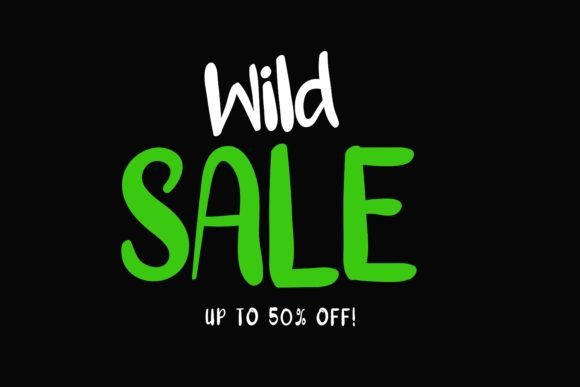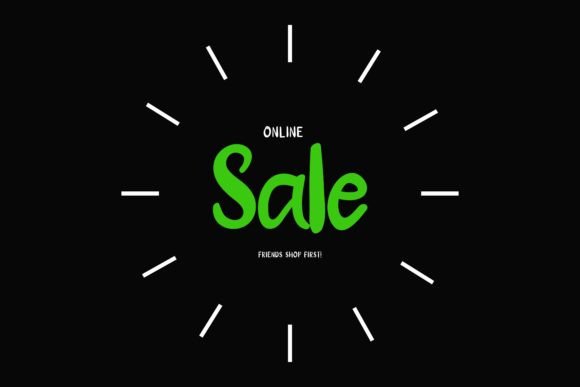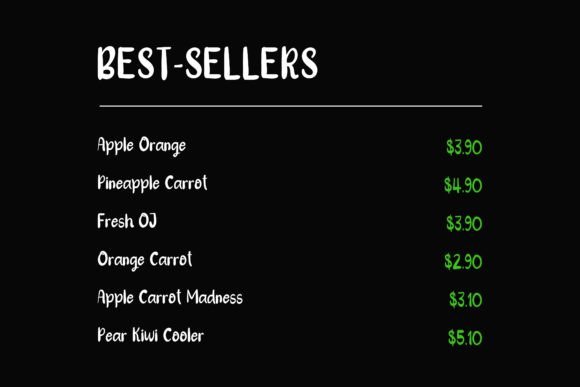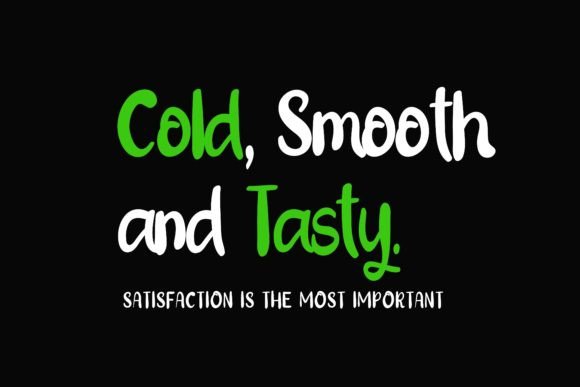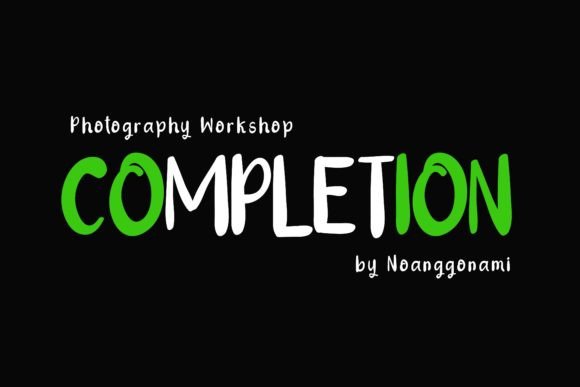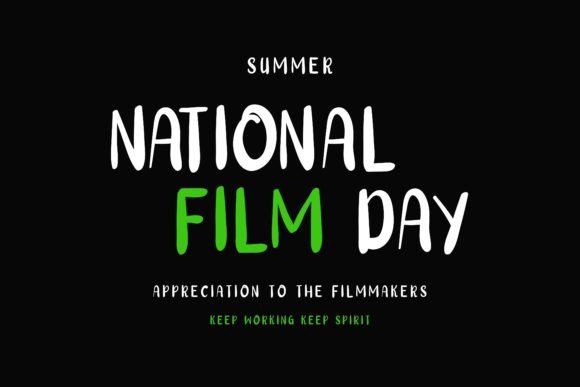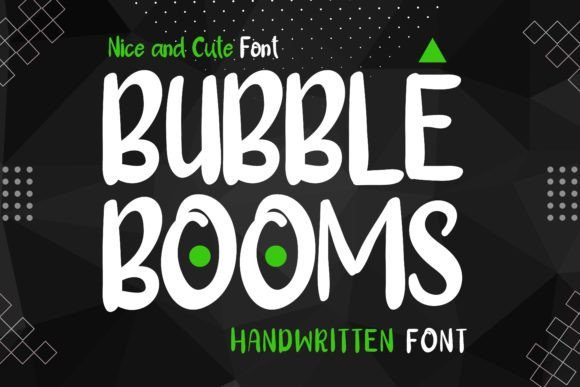
Bubble Booms Font: The Cute and Charming Handwritten Font for Your Design and Craft Projects
Are you looking for a font that can add a touch of whimsy and charm to your design and craft projects? Look no further than Bubble Booms Font! This adorable handwritten font is perfect for a wide range of projects, from logos and wedding invitations to T-shirts, letterheads, labels, and more. In this article, we’ll take a closer look at Bubble Booms Font and explore its features, benefits, and uses.
What is Bubble Booms Font?
Bubble Booms Font is a cute and charming handwritten font that’s designed to capture everyone’s heart and attention. Its playful and bubbly style makes it perfect for projects that require a touch of personality and whimsy. The font is highly legible and versatile, making it suitable for a wide range of design and craft projects.
Features of Bubble Booms Font
Bubble Booms Font has several features that make it a great choice for designers and crafters. Some of its key features include:
- Cute and charming design: Bubble Booms Font has a unique and adorable design that’s sure to capture everyone’s heart and attention.
- Handwritten style: The font has a handwritten style that’s perfect for projects that require a personal touch.
- Highly legible: The font is highly legible, making it easy to read and understand.
- Versatile: Bubble Booms Font is versatile and can be used for a wide range of design and craft projects.
Uses of Bubble Booms Font
Bubble Booms Font is perfect for a wide range of design and craft projects, including:
- Logos: Use Bubble Booms Font to create a unique and memorable logo for your business or brand.
- Wedding invitations: Add a touch of whimsy and charm to your wedding invitations with Bubble Booms Font.
- T-shirts: Use Bubble Booms Font to create fun and playful designs for T-shirts and other apparel.
- Letterheads: Add a personal touch to your letterheads with Bubble Booms Font.
- Labels: Use Bubble Booms Font to create cute and charming labels for your products or gifts.
- News: Use Bubble Booms Font to create eye-catching headlines and titles for your news articles.
- Posters: Create fun and playful posters with Bubble Booms Font.
- Badges: Use Bubble Booms Font to create cute and charming badges for your events or promotions.
Benefits of Using Bubble Booms Font
There are several benefits to using Bubble Booms Font for your design and craft projects. Some of the benefits include:
- Unique and memorable designs: Bubble Booms Font can help you create unique and memorable designs that capture everyone’s heart and attention.
- High-quality design: Bubble Booms Font has a high-quality design that’s perfect for professional and personal projects.
In conclusion, Bubble Booms Font is a cute and charming handwritten font that’s perfect for many design and craft projects. Its playful and bubbly style makes it perfect for projects that require a touch of personality and whimsy. With its highly legible design and versatile style, Bubble Booms Font is a great choice for designers and crafters. So why not give it a try and see how it can add a touch of charm to your next project?